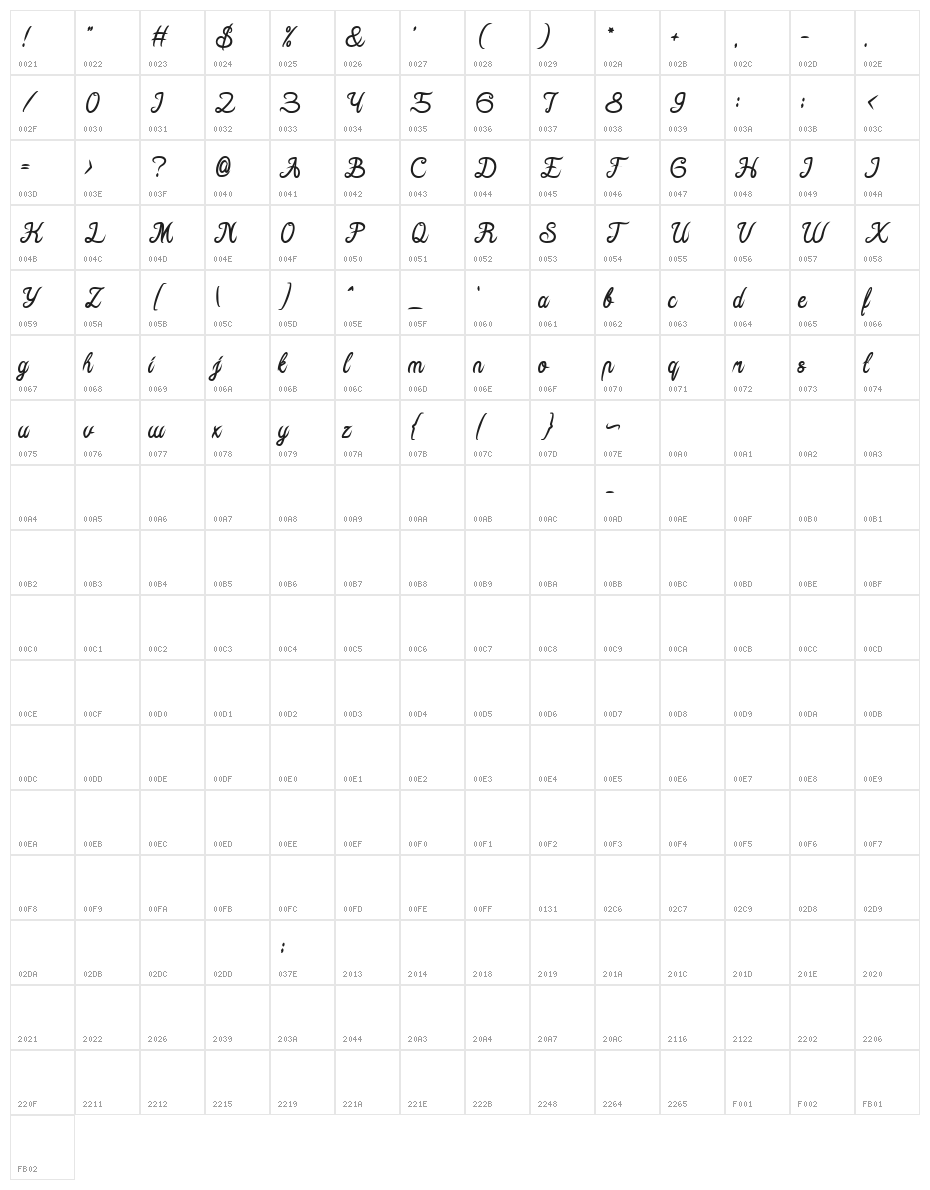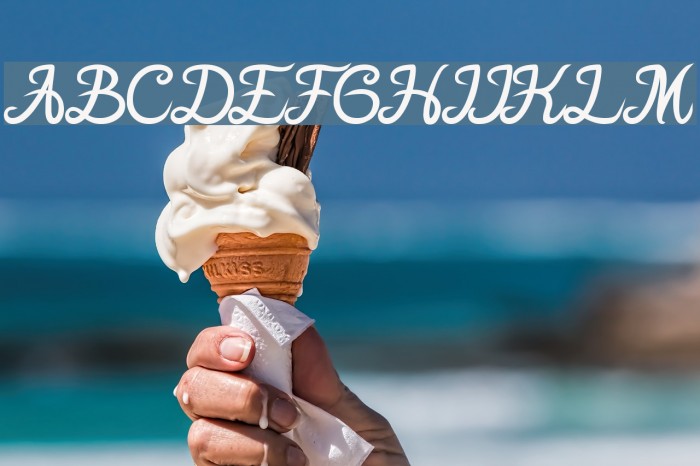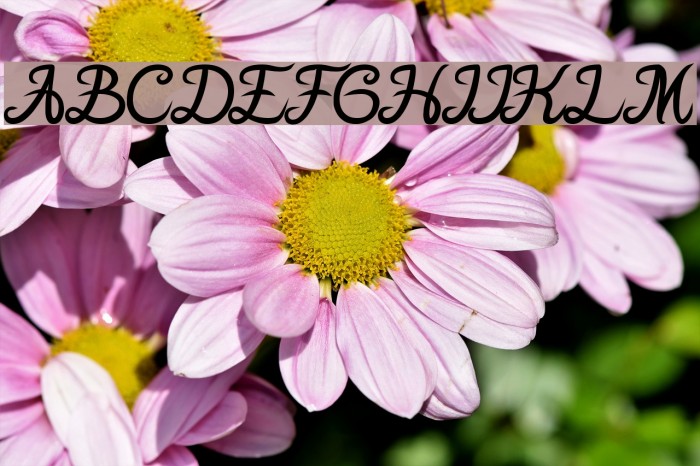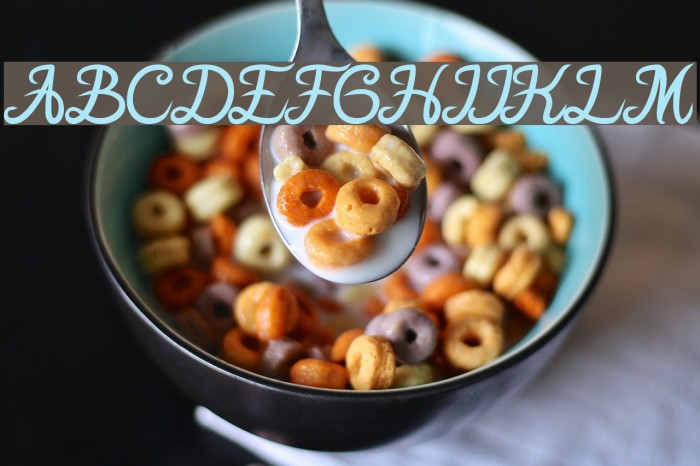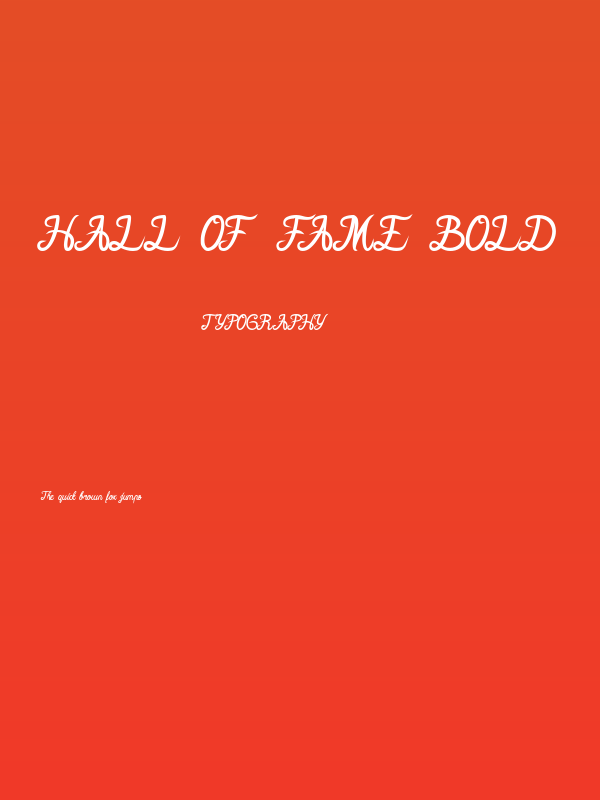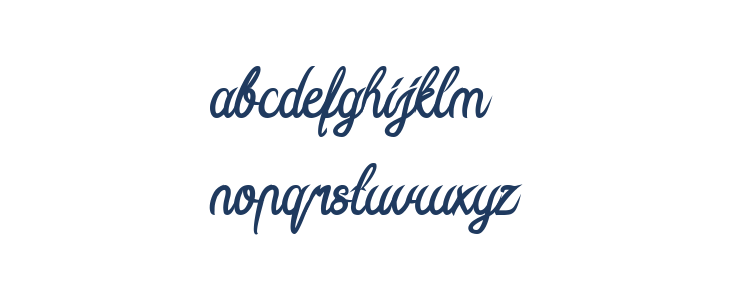
Hall Of Fame Bold Font
Hall Of Fame Bold Description
This font exudes a bold and elegant script style, characterized by its flowing, cursive letterforms that mimic the fluidity of handwriting. The uppercase letters are distinct with sweeping curves and flourishes, while the lowercase letters maintain a consistent, smooth flow. The numerals are designed with a similar flair, ensuring a cohesive look across all characters. Special characters are crafted with the same attention to detail, adding a touch of sophistication. The overall appearance is both classic and stylish, making it suitable for a variety of creative applications.